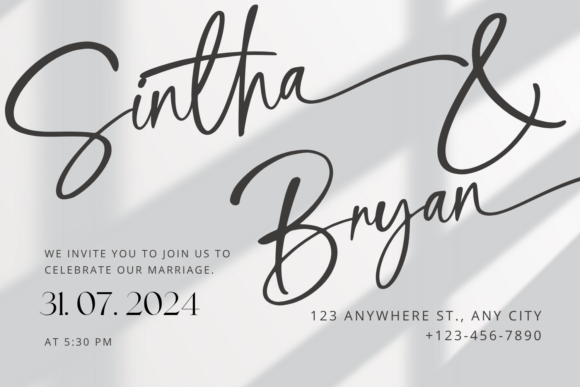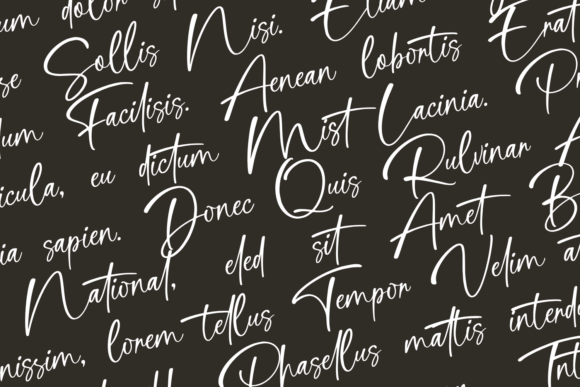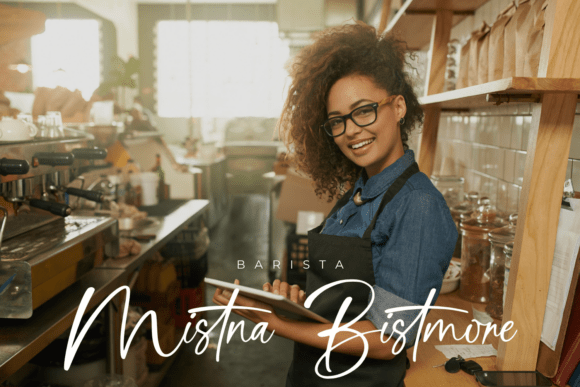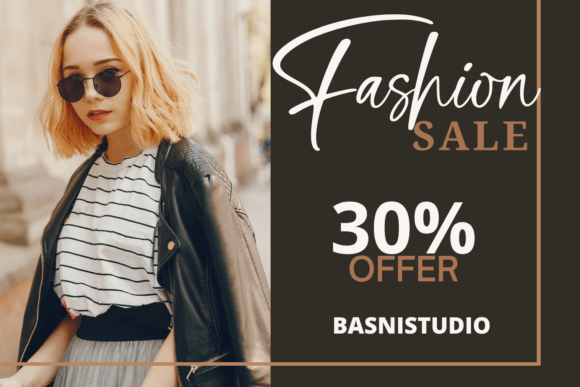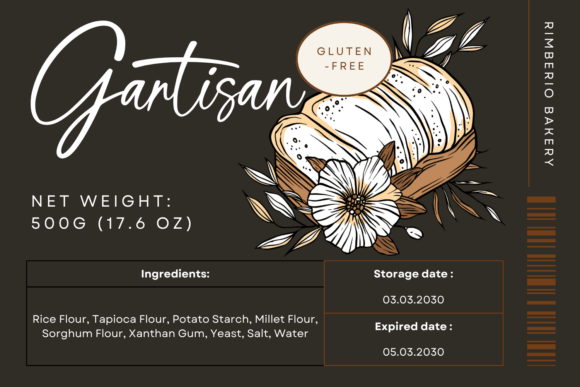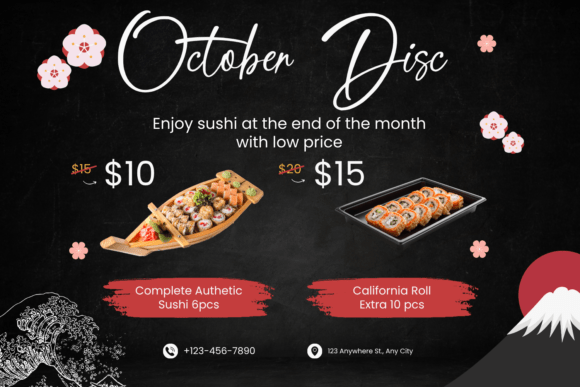
Introducing Cathelink: The Perfect Handwritten Touch for Your Designs
In the world of design, fonts play a crucial role in conveying the tone and personality of a brand or project. If you’re looking for a font that adds an elegant, versatile touch to your designs, look no further than Cathelink. This beautiful handwritten font is perfect for designers, crafters, and anyone looking to add a personal touch to their work.
Elegant & Versatile: The Perfect Font for Any Project
Cathelink is a font that exudes elegance and sophistication. Its versatile nature makes it perfect for a wide range of projects, from branding and social media to invitations and packaging. Whether you’re building a powerful brand identity or crafting a standout logo, Cathelink gives you the creative edge you need.
With Cathelink, you can create stunning designs that capture the essence of your brand or project. The font is ideal for:
- Logos: Create a lasting impression with a custom logo that showcases your brand’s personality.
- Quotes: Add a touch of elegance to your quotes and make them stand out.
- Greeting cards: Create beautiful, heartfelt greeting cards that will leave a lasting impression.
- Branding: Establish a strong brand identity with a font that reflects your values and personality.
Authentic Handwritten Feel: A Natural Look that Stands Out
Cathelink is a handwritten font that is created with real pen strokes, giving it an authentic, natural look. The font is designed to mimic the imperfections of handwriting, making it perfect for designers who want to add a personal touch to their work.
The authentic handwritten feel of Cathelink makes it perfect for:
- Invitations: Create beautiful, handwritten invitations that will make your guests feel special.
- Packaging: Add a personal touch to your packaging with a font that looks like it was written with love.
- Social media: Stand out on social media with a font that adds a touch of elegance to your posts.
Why Choose Cathelink?
With so many fonts available, why choose Cathelink? Here are just a few reasons why Cathelink stands out:
- Elegance: Cathelink adds an elegant touch to any design, making it perfect for brands and projects that want to convey sophistication.
- Versatility: The font is versatile and can be used for a wide range of projects, from branding to social media.
- Authenticity: Cathelink has an authentic handwritten feel that makes it perfect for designers who want to add a personal touch to their work.
Get Creative with Cathelink
If you’re looking for a font that adds an elegant, versatile touch to your designs, look no further than Cathelink. With its authentic handwritten feel and ease of use, Cathelink is the perfect choice for designers, crafters, and anyone looking to add a personal touch to their work.